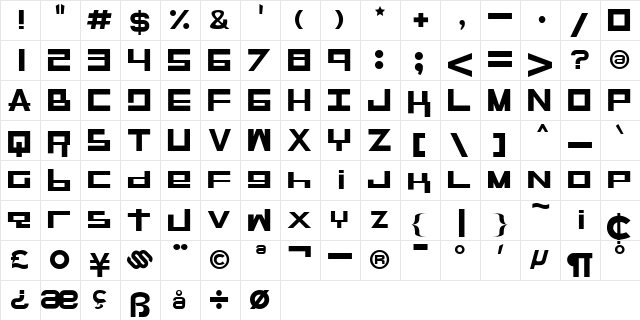
Untitled 1
Design Context for Untitled Typeface
Untitled is a composed and adaptable typeface that performs quietly and consistently across a wide range of design contexts.